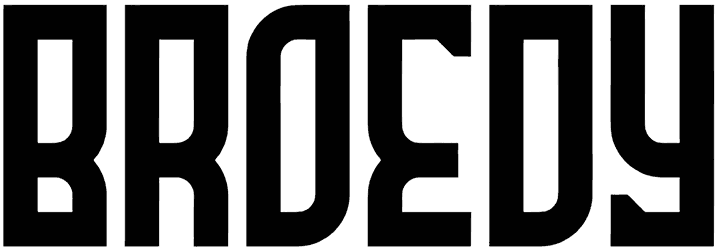
Broedy Font
Broedy is a display font with a rough and modern appearance. Even though it lacks lowercase letters and numbers, it’s perfect for adding charisma to your designs. It’s perfect for use in flashy contexts like movie and ga…
Broedy is a display font with a rough and modern appearance. Even though it lacks lowercase letters and numbers, it’s perfect for adding charisma to your designs. It’s perfect for use in flashy contexts like movie and game titles, banner headlines, and more.